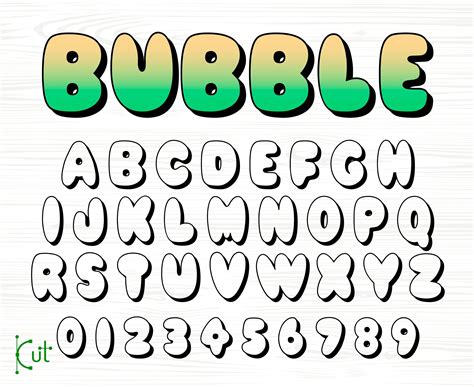
Readers, have you ever wanted to add a touch of whimsy and playfulness to your text? Imagine your words bubbling up like a cheerful, fizzy drink, catching the eye and adding a unique charm to your creations. That's where a **bubble font alphabet generator** comes in, offering a delightful way to transform ordinary text into eye-catching, fun displays.
These generators are like magic wands for text, transforming words into playful bubbles, adding a pop of personality to anything from social media posts to greeting cards. They're a powerful tool for capturing attention, adding a dash of creativity, and making your writing stand out. I've spent countless hours exploring the world of bubble font alphabet generators, and I'm ready to share the secrets of creating truly fun text styles.
Why Use a Bubble Font Alphabet Generator?
Unleashing Creativity
The beauty of bubble font alphabet generators lies in their ability to spark imagination and add a touch of whimsy to your text. Whether you're designing a birthday card, adding a personalized touch to a website, or simply wanting to make your notes more visually appealing, these generators provide a fun and easy way to express your creativity.
Adding Visual Interest
In a world of text overload, it's crucial to make your writing stand out. Bubble fonts offer a unique visual appeal, drawing attention and making your words more engaging. They break the monotony of standard fonts, adding a touch of playfulness and personality to your creations.
Creating a Fun and Friendly Atmosphere
Bubble fonts have a naturally cheerful and inviting quality. They evoke a sense of joy and lightheartedness, making them perfect for projects that aim to create a positive and friendly atmosphere.
Types of Bubble Font Alphabet Generators
Online Generators
Desktop Applications
How to Choose the Right Bubble Font Generator
Determine Your Purpose
What are you using the bubble font for? Are you creating a casual social media post, a formal invitation, or a playful birthday card? Your purpose will guide your choice of generator and font style.
Consider Your Audience
Who are you trying to reach? Your audience will influence your font choice. A playful bubble font might be perfect for a children's book but less appropriate for a professional website.
Experiment with Different Generators
Don't be afraid to try out various generators. Explore their features, test different fonts, and see what style best suits your needs.
Tips for Using Bubble Font Alphabet Generators Effectively
Keep It Simple
While bubble fonts can be visually appealing, avoid using excessive amounts of text in this style. Too much bubble font can become overwhelming and difficult to read. Stick to short phrases or words for maximum impact.
Use Contrast
Ensure your bubble font stands out against its background. Use contrasting colors to create visual clarity and make your text more readable.
Practice Restraint
Bubble fonts are best used sparingly. Overuse can detract from the impact and make your design look cluttered. Use them as a highlight to draw attention to specific words or phrases.
Examples of Bubble Font Alphabet Generators
1. Font Meme
Font Meme offers a wide range of fonts, including various bubble font styles. It's a comprehensive resource for finding the perfect bubble font for your project.
2. FontSpace
FontSpace provides a large collection of free and premium fonts, including a selection of bubble font styles. You can browse by category or search for specific styles to find the perfect fit.
3. Dafont
Dafont is another popular website for finding free fonts. It features a dedicated category for bubble fonts, showcasing a range of styles to suit different needs.
Bubble Font Alphabet Generator: FAQs
What is a bubble font alphabet generator?
A bubble font alphabet generator is a tool that transforms ordinary text into playful, bubble-like characters. It's like a digital magic wand for text, adding a touch of whimsy and making your words more visually appealing.
How do I use a bubble font alphabet generator?